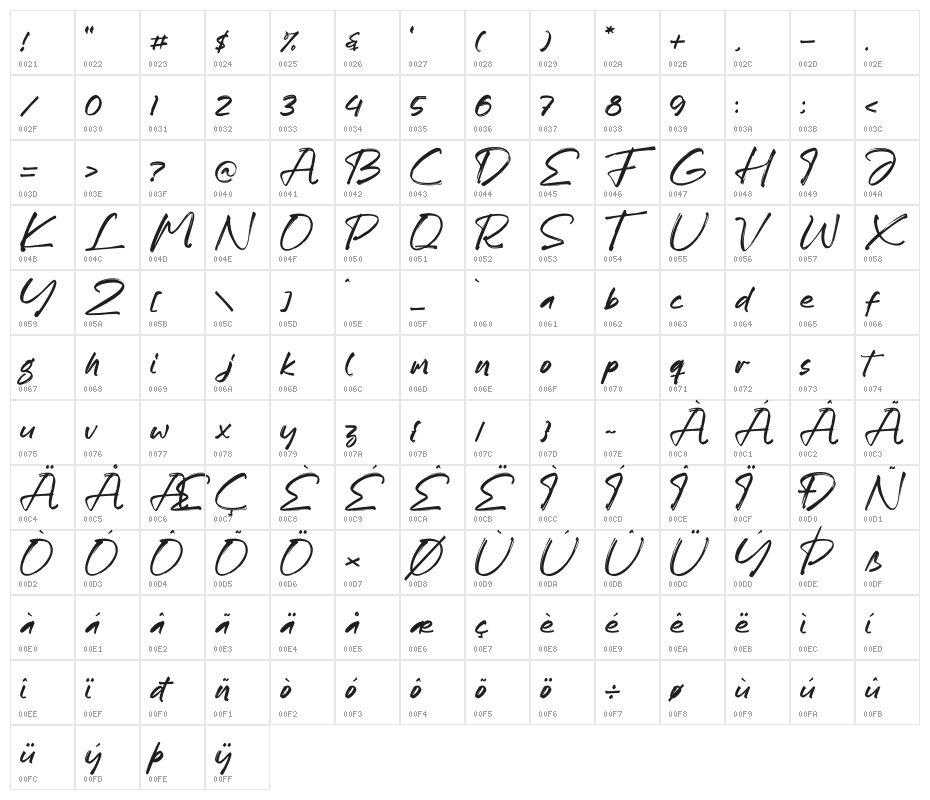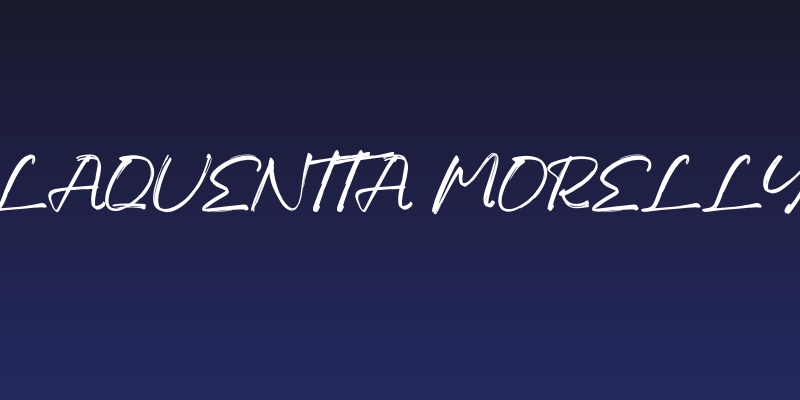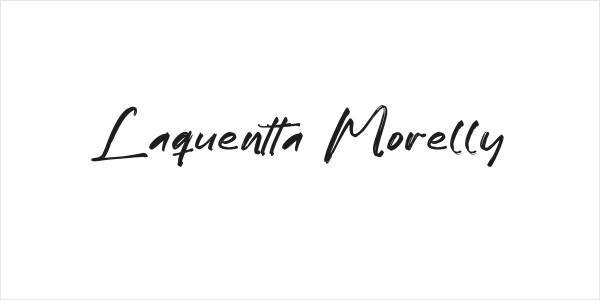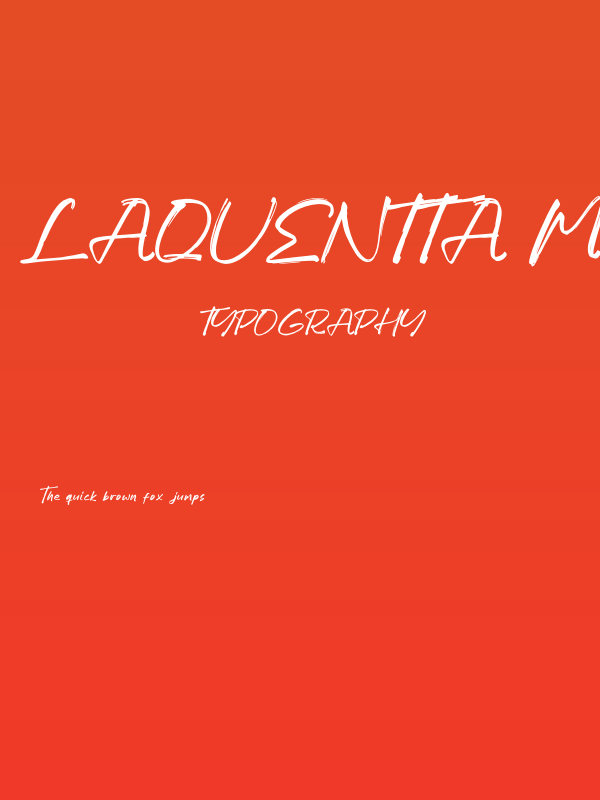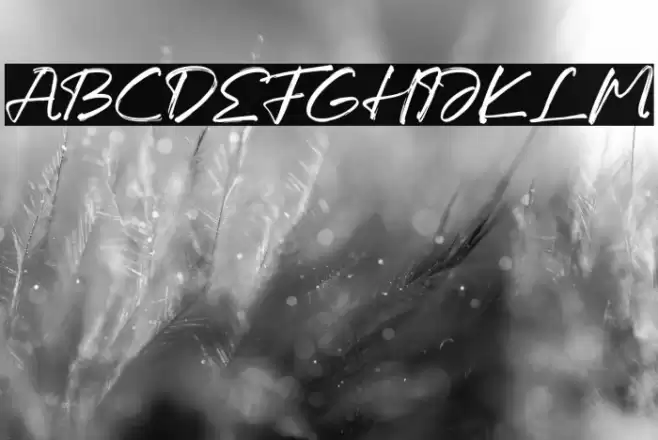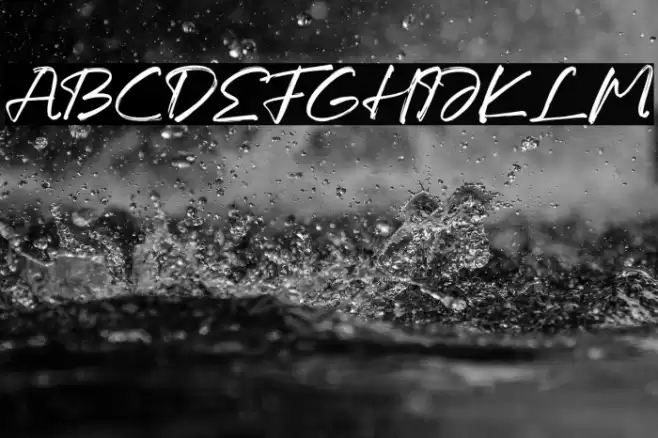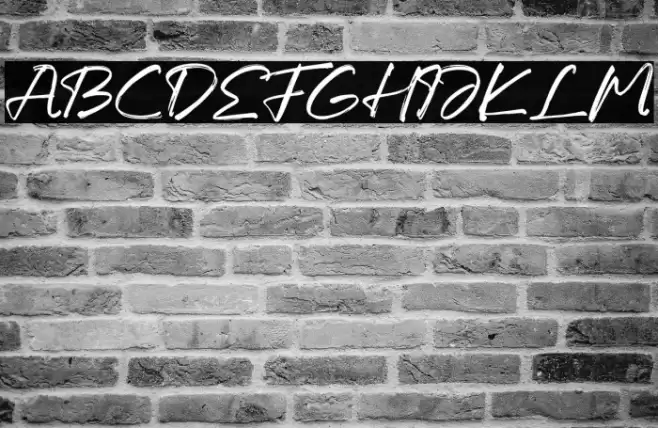
Laquentta Morelly Font
Laquentta Morelly Description
A casual, handwritten script font with a smooth, flowing style, featuring both uppercase and lowercase letters, numerals, and common punctuation.
| Overall Style | Casual, Handwritten |
| Use Case | Headlines, Body text, Logos, Personal projects |